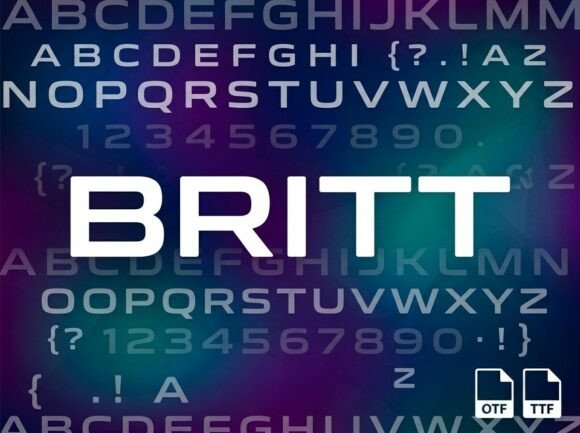
The Britt Font: A Stunning Decorative Display Font to Elevate Your Designs
Have you ever been working on a project, pouring your heart and soul into it, and then suddenly realized that something’s missing? You’re not quite satisfied with the font you’ve chosen, and it’s just not giving your design the oomph it needs. I know I’ve been there, and it’s frustrating. That’s when I discovered the Britt Font, and let me tell you, it’s been a game-changer.
My First Impressions
The first time I laid eyes on the Britt Font, I was blown away by its unique artistic elements and strong visual personality. It’s a decorative display font that’s designed to be the center of attention, and boy, does it deliver! The font features a stunning set of uppercase letters that are perfect for bold headlines, artistic logos, and creative packaging.
• ✨ Unique and artistic design that’s sure to turn heads
• ✅ Professional and polished finish that’s perfect for high-end designs
• 💥 Versatile enough for use in bold headlines, artistic logos, and creative packaging
⚠️ One thing to note is that the Britt Font is an ALL-CAPS (Uppercase Only) display typeface. This means it doesn’t include lowercase letters, which might be a limitation for some designers. However, this also means that every letter is a work of art, making it perfect for high-impact headlines, logos, and decorative initials.
Some of the OpenType features included with the Britt Font include:
• Ligatures: These are special character combinations that can be used to create unique and artistic text effects.
• Stylistic alternates: These are alternative characters that can be used to add variety and interest to your text.
• Glyphs: These are special characters that can be used to add decorative elements to your text.
The Designer Inspiration Behind the Britt Font
The Britt Font was designed with the creative and artistic designer in mind. The designer wanted to create a font that would stand out from the crowd and provide a unique and elegant solution for designers who want to add a touch of sophistication to their work.
Q: Is the Britt Font suitable for body text?
A: No, the Britt Font is a display font that’s designed for use in headlines, logos, and decorative initials. It’s not suitable for body text due to its artistic and decorative nature.